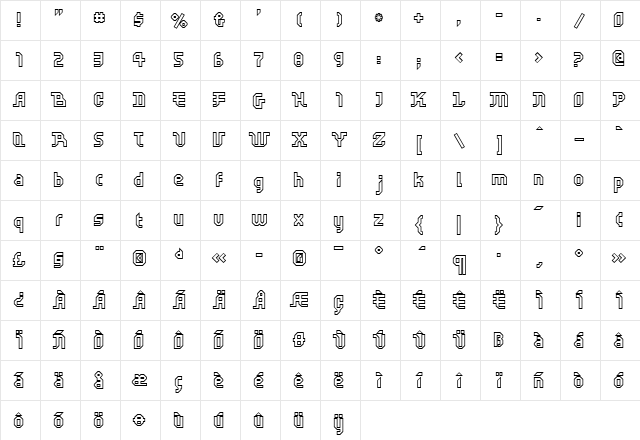
FFScratch-Outline Medium
Design Context for FFScratch-Outline Typeface
FFScratch-Outline is built around its visual character rather than neutral utility — its distinctive forms are designed to make an impression at display sizes.
Font Pairing: Pair with a clean neutral sans-serif for body copy to let FFScratch-Outline's character lead without overwhelming the composition.
Pro Tip: Treat FFScratch-Outline as the centrepiece of your typographic hierarchy. One strong heading set in a decorative face can carry an entire layout.